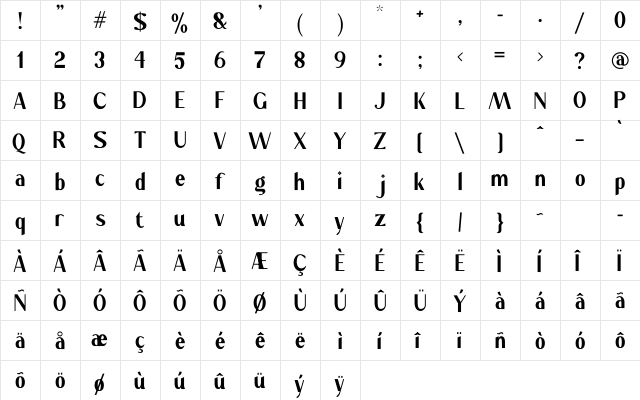
Stay High Regular
Design Context for Stay High Typeface
Stay High offers clean, dependable letterforms without strong stylistic allegiance, making it a practical choice for designers who need flexibility.
Pro Tip: Use Stay High in both headline and body roles to test its range before committing to a single application.